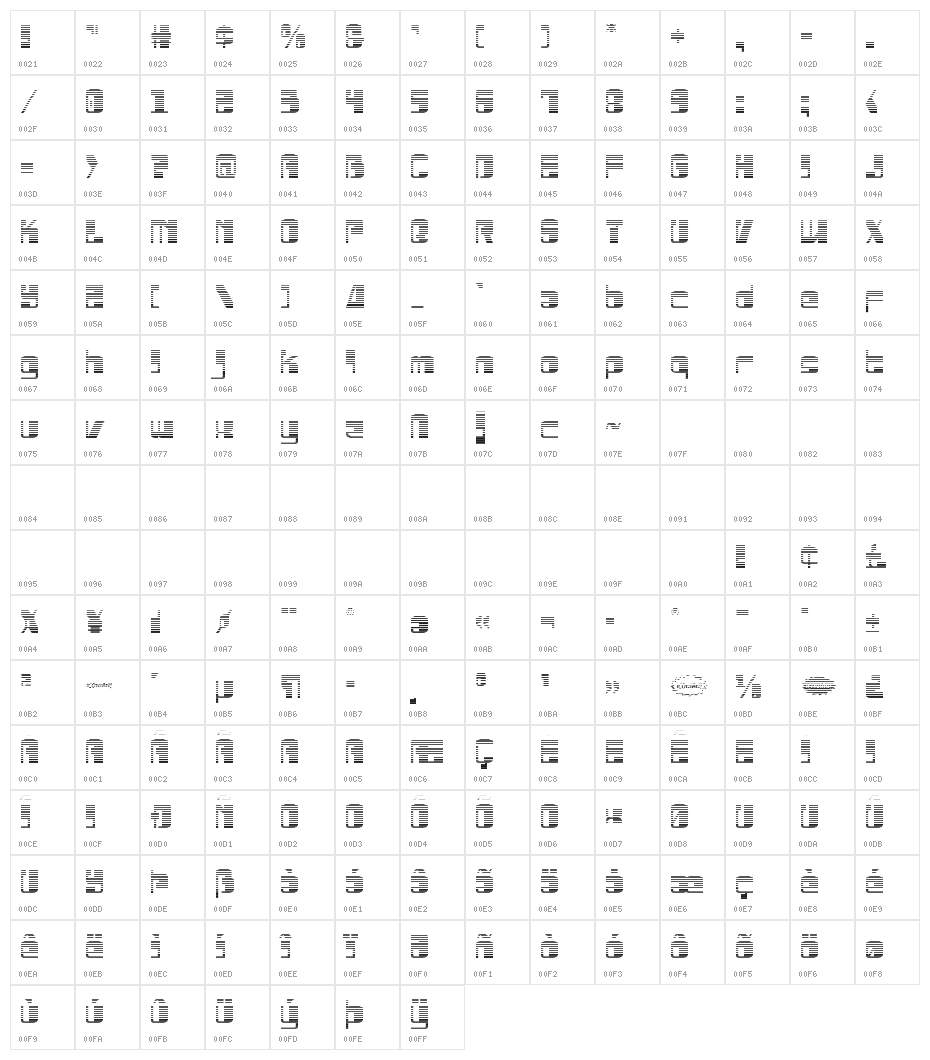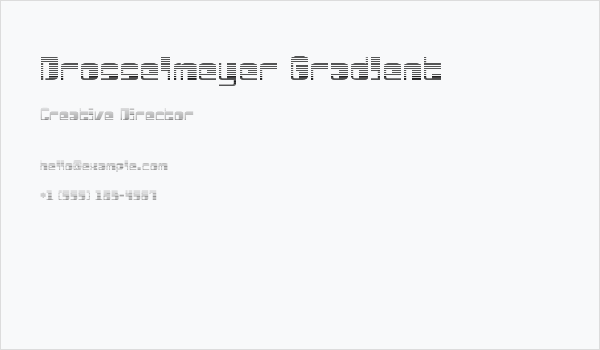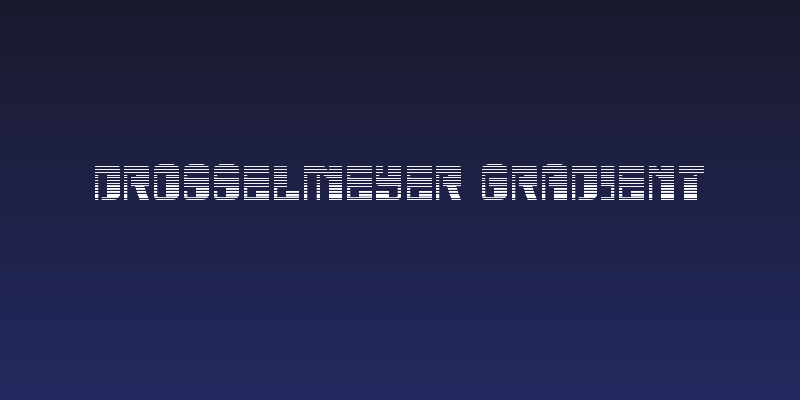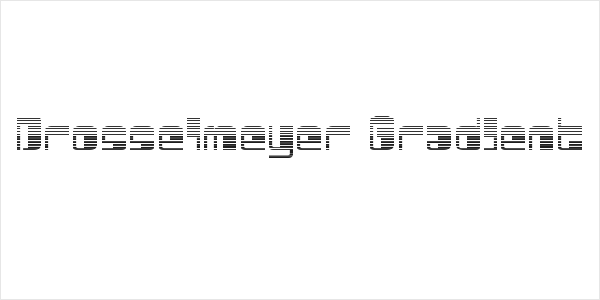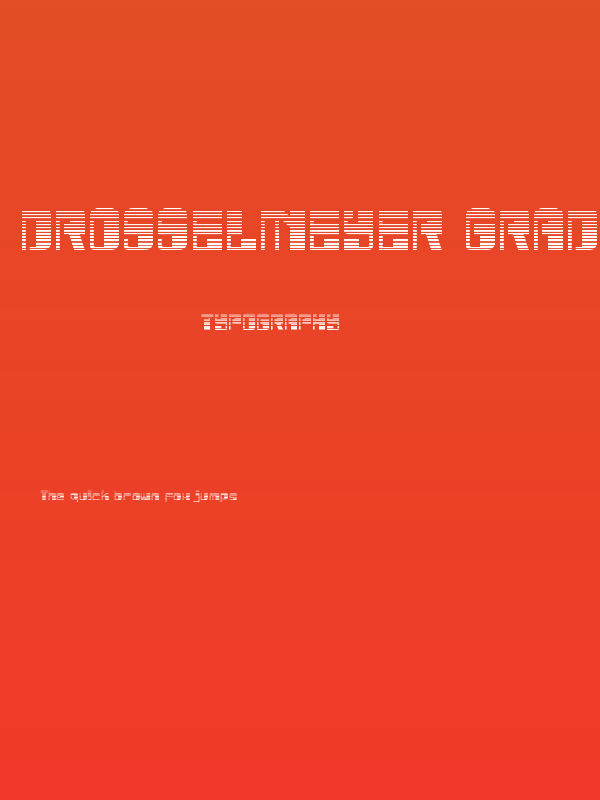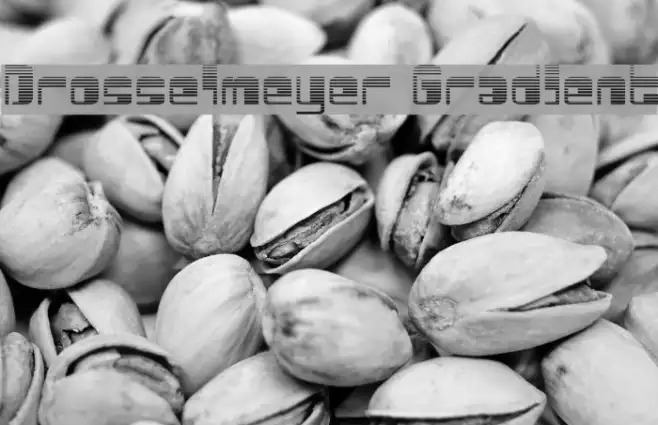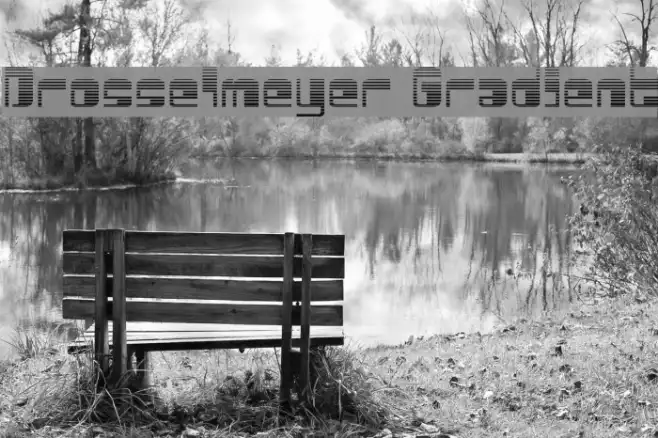
Drosselmeyer Gradient Font
Drosselmeyer Gradient Description
This font features a unique, modern design with a gradient effect created by horizontal lines that vary in thickness. The characters are bold and geometric, giving them a futuristic and digital appearance. The uppercase and lowercase letters maintain a consistent style, with sharp angles and clean lines. Numbers and special characters are designed to match the overall aesthetic, ensuring a cohesive look across all text. The font's distinct style makes it stand out, ideal for projects that require a contemporary and eye-catching typeface.
| Proposed Projects | Ideal for digital media, tech branding, futuristic posters, and modern graphic design projects. |